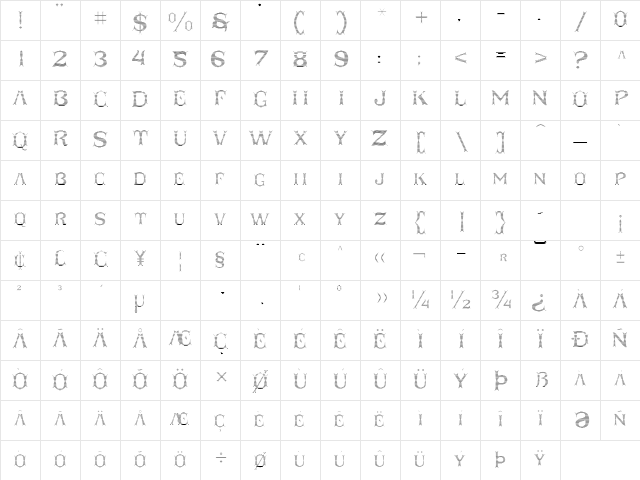
Taqueria Open Fill Lines Regular Free Font
Taqueria Open Fill Lines Regular
Complete Taqueria Open Fill Lines Regular glyph index. Displaying only characters natively supported by Taqueria Open Fill Lines Regular font.
Design Context for Taqueria Open Fill Lines
Taqueria Open Fill Lines is a composed and adaptable typeface that performs quietly and consistently across a wide range of design contexts.
Pro Tip: Use Taqueria Open Fill Lines in both headline and body roles to test its range before committing to a single application.